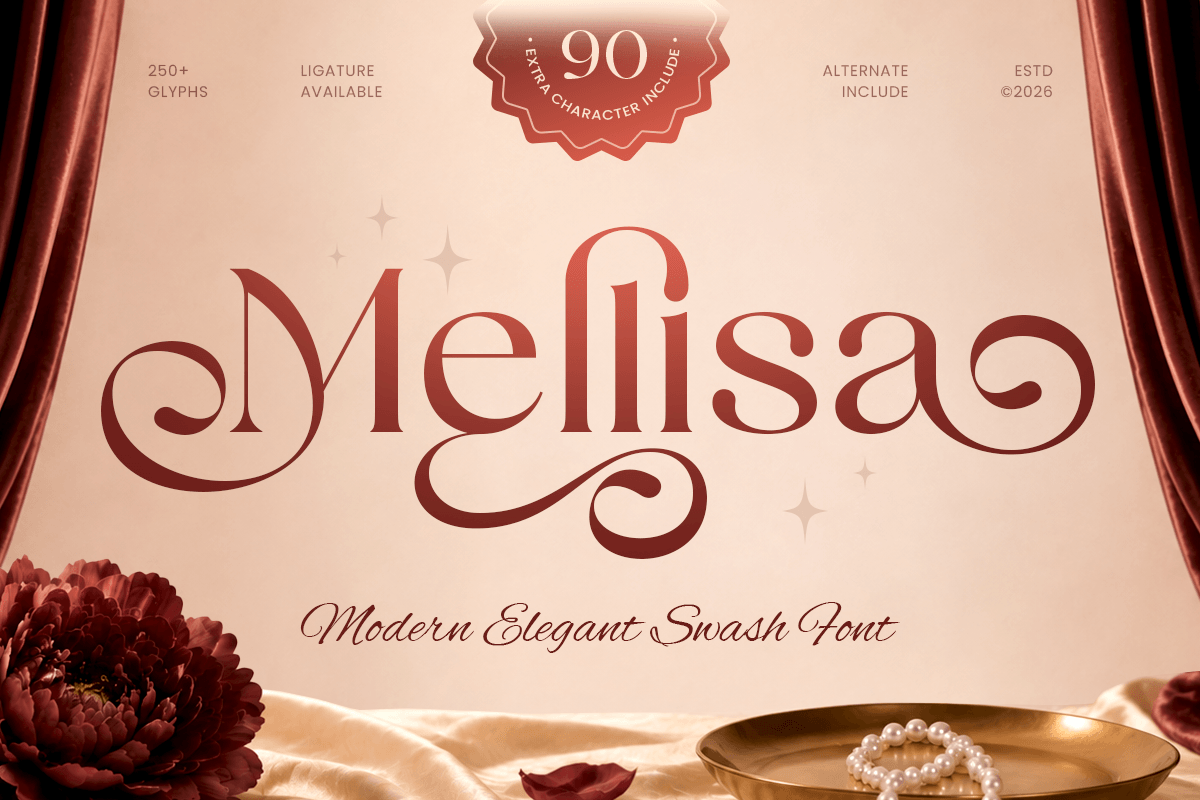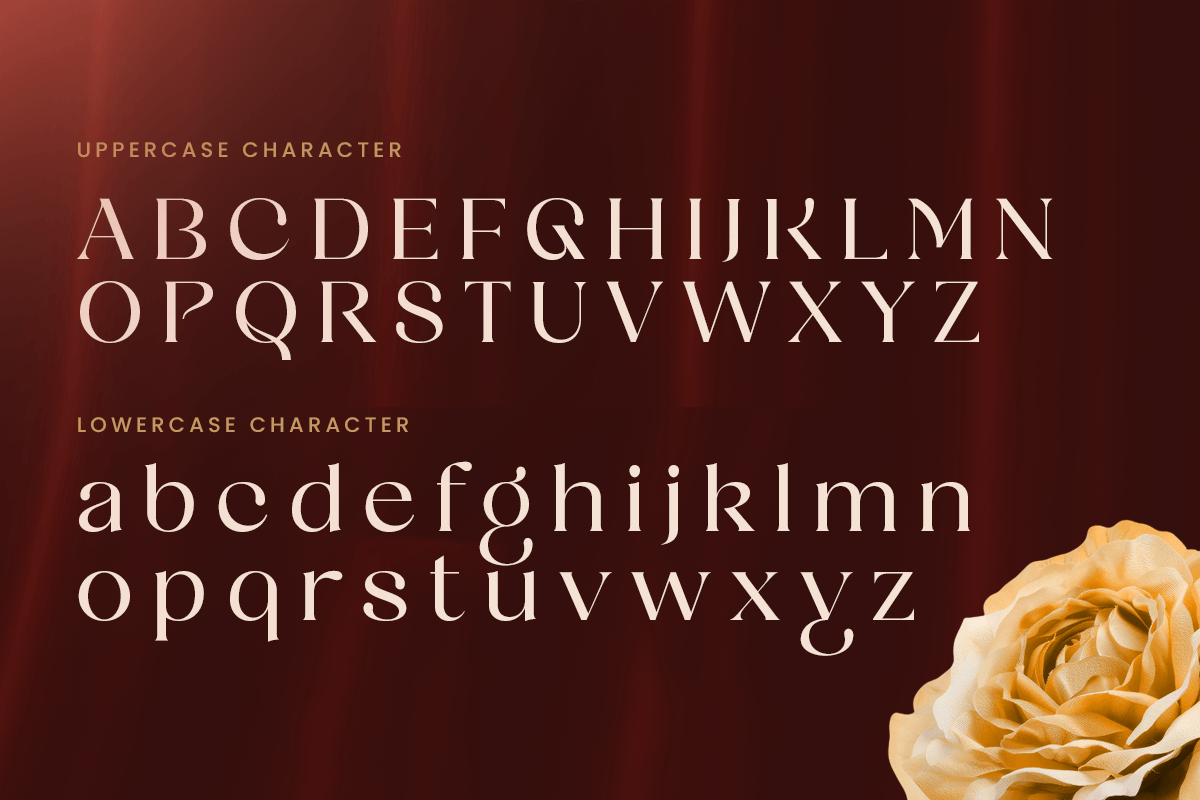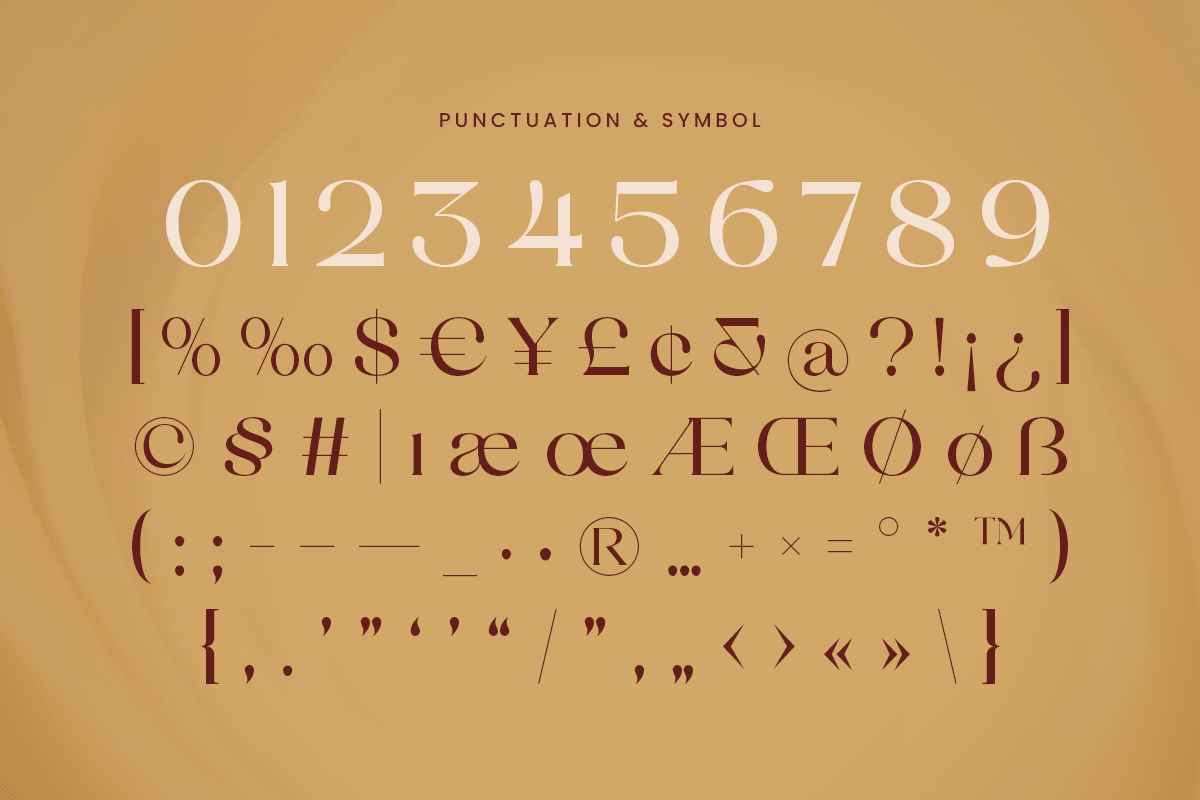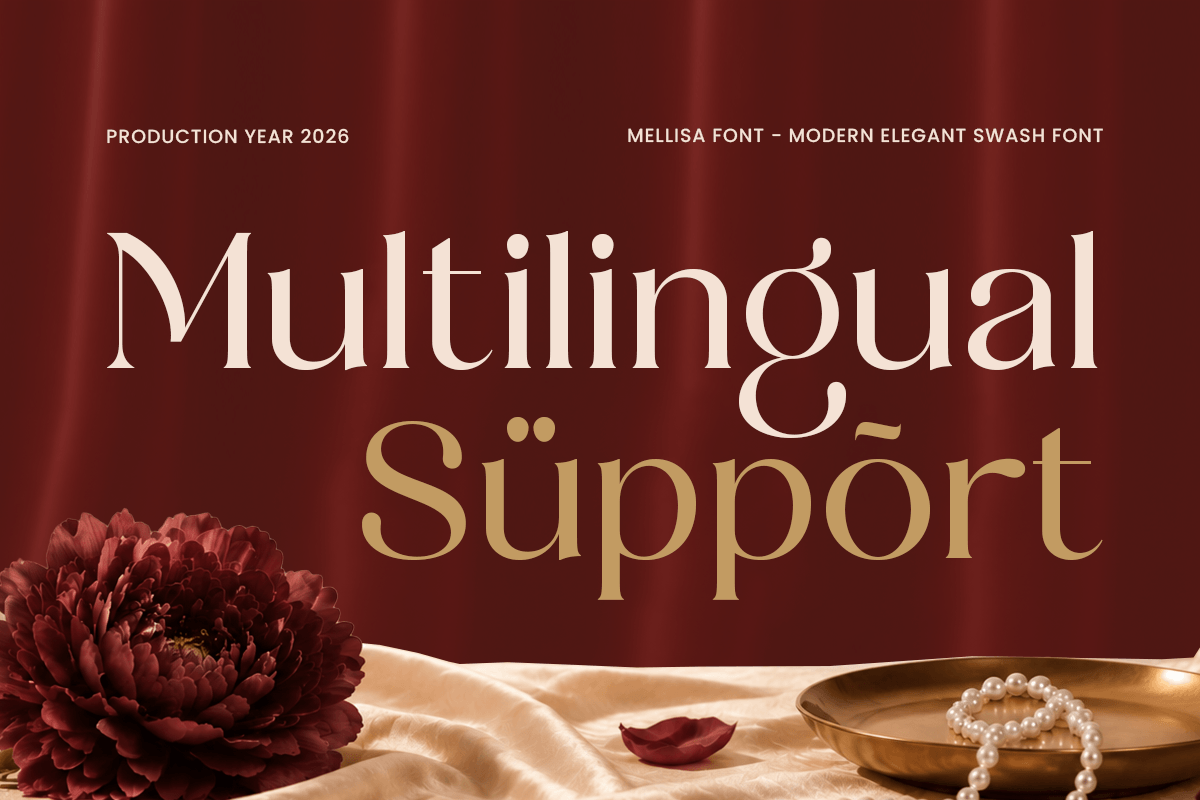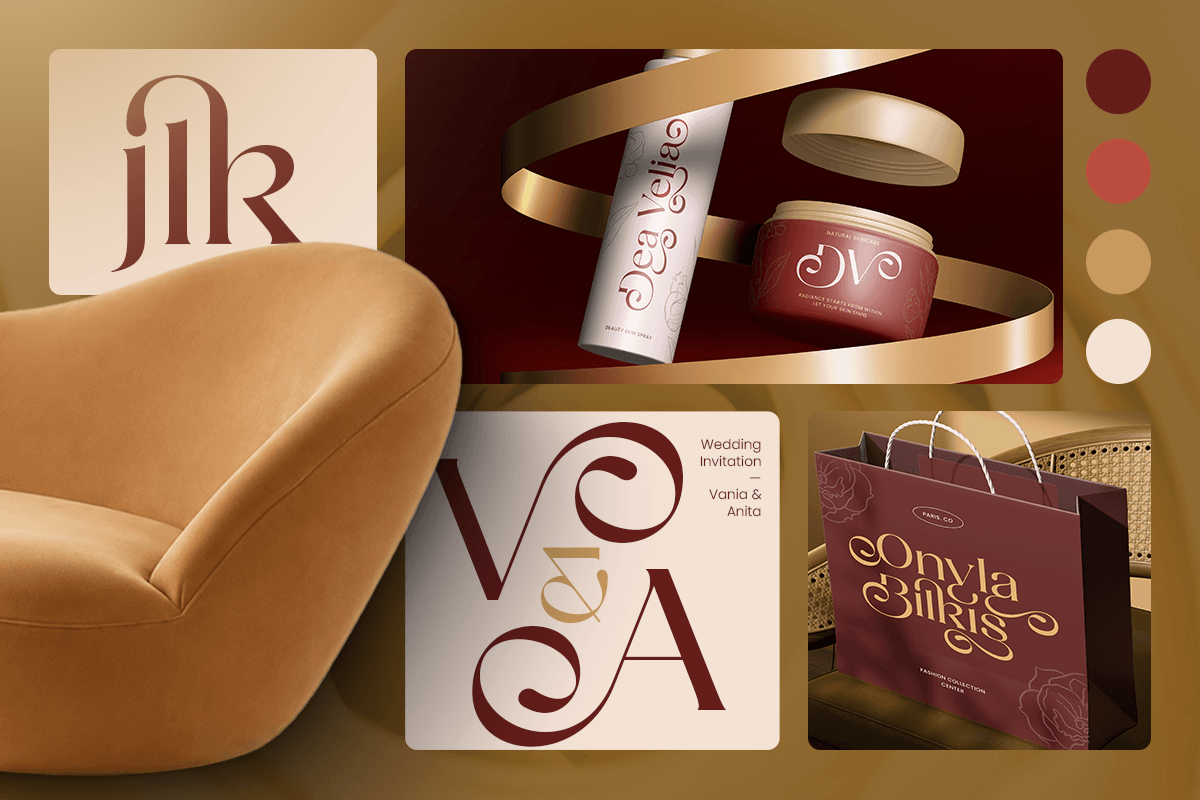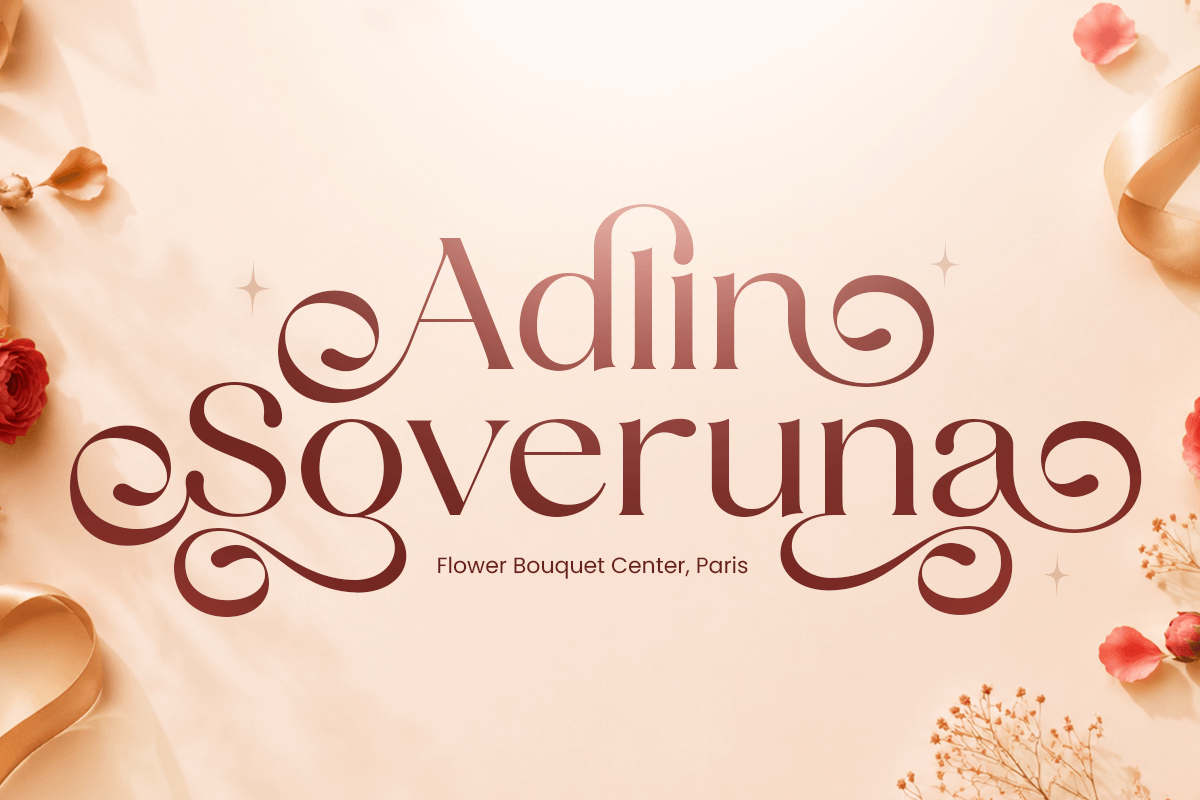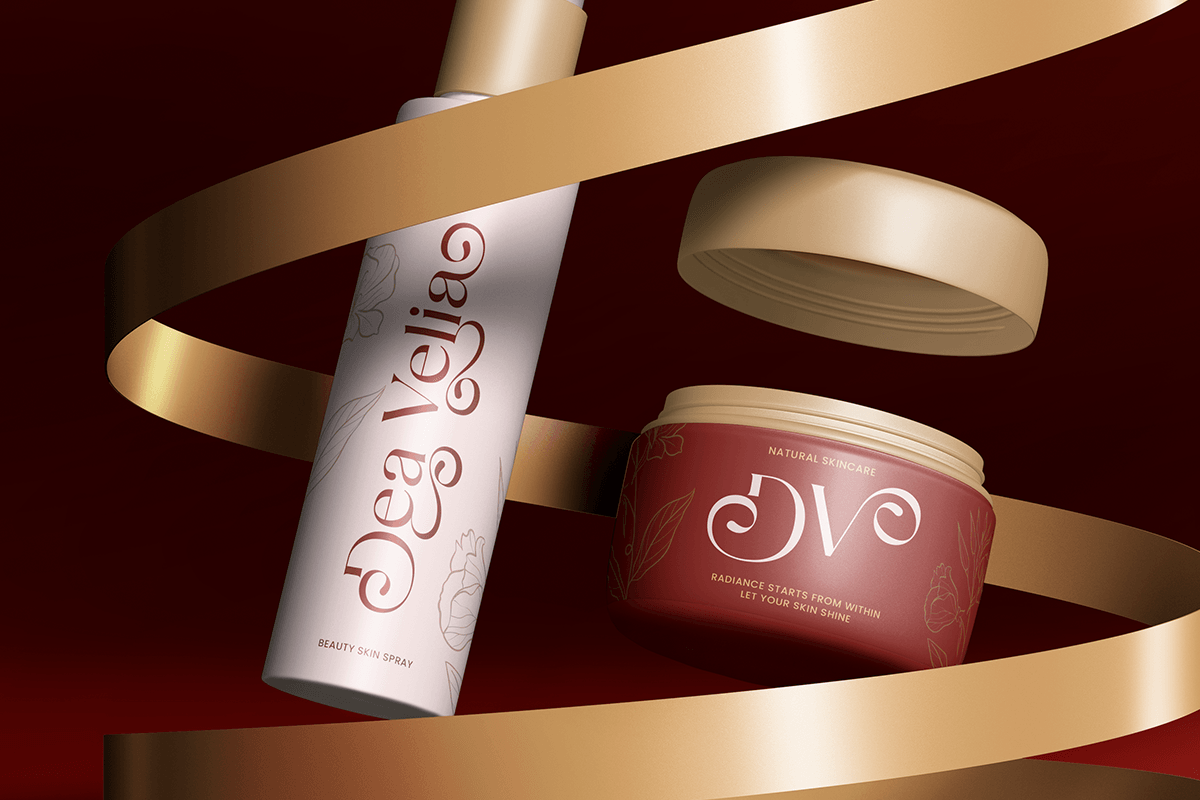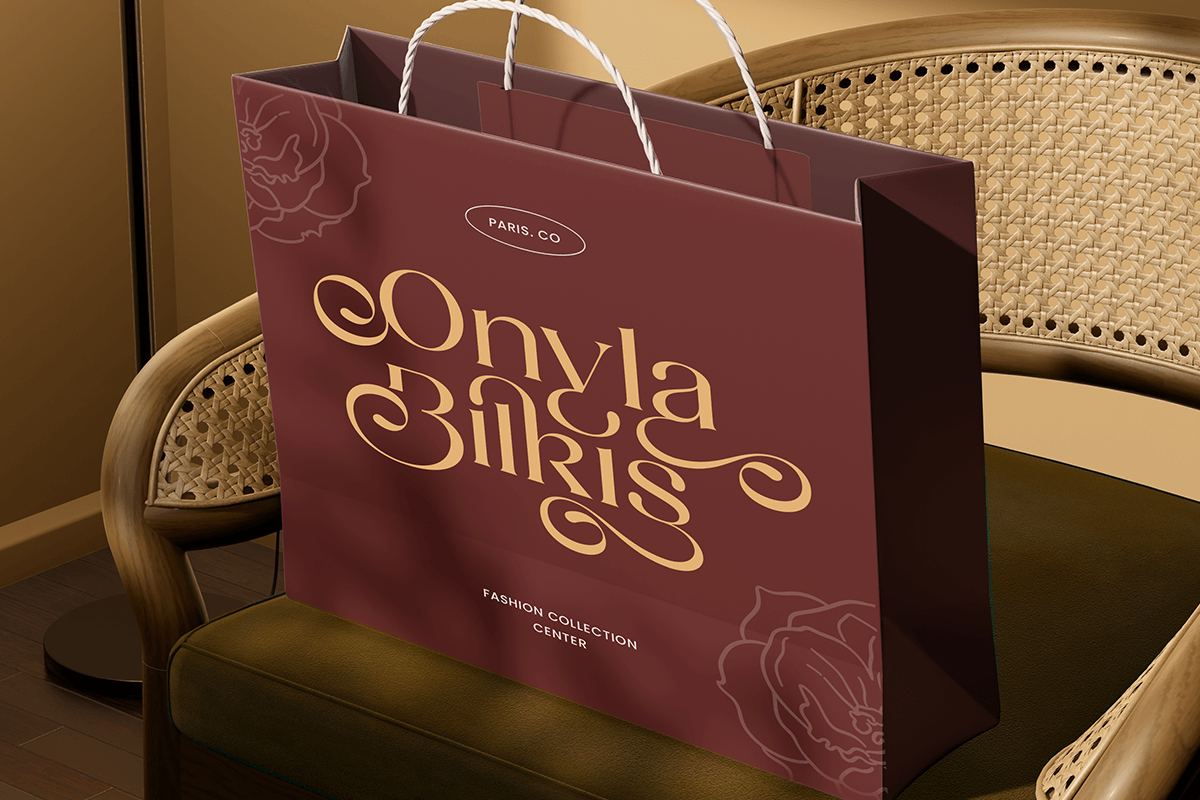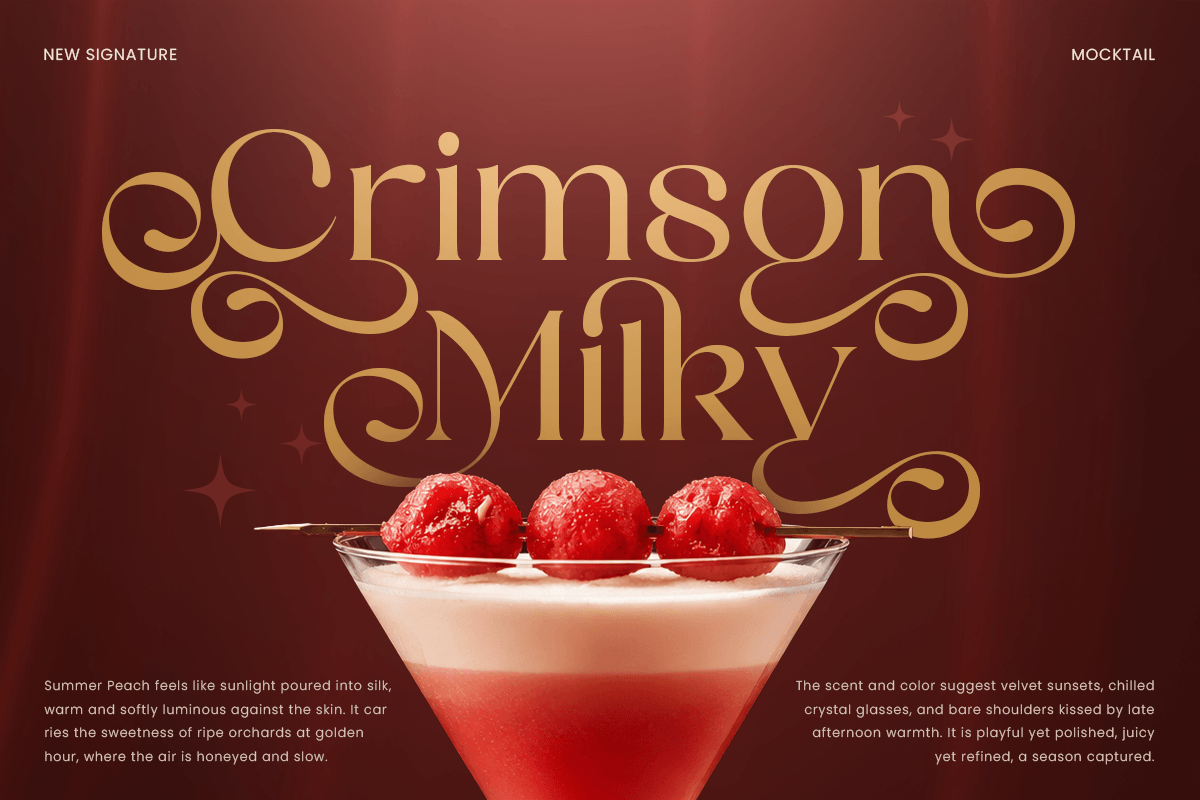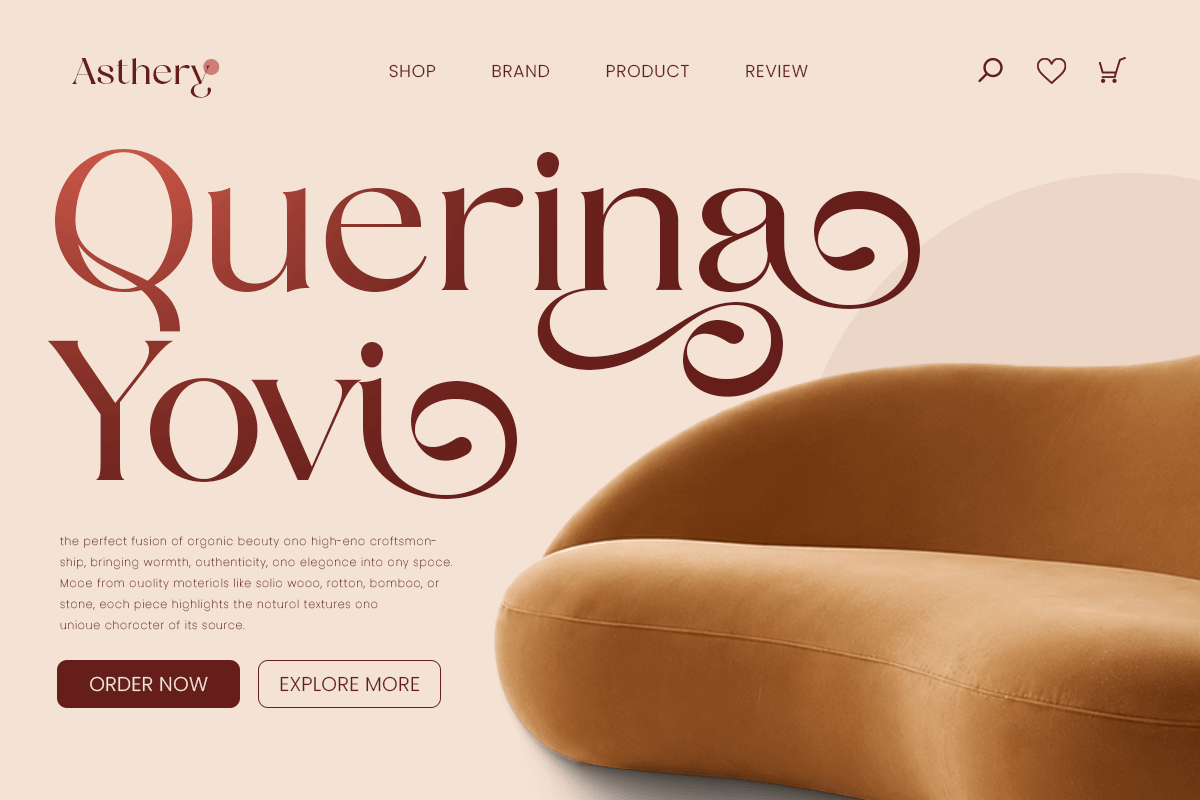
Mellisa - Modern Elegant Font
Mellisa is a modern elegant font crafted with refined letterforms, graceful details, and a sophisticated personality. Combining contemporary aesthetics with timeless elegance, this typeface delivers a polished and luxurious presence for creative projects that require style and distinction.
Perfect for luxury branding, elegant logos, fashion identities, beauty packaging, wedding stationery, editorial layouts, and premium product designs, Mellisa brings a classy visual character to every composition. Its modern elegant style also works beautifully for posters, headlines, signage, social media graphics, and sophisticated print materials.
Whether used for a boutique brand, cosmetics label, magazine cover, invitation, or high-end visual identity, Mellisa provides designers with a versatile modern elegant font that feels refined, fashionable, and memorable across both digital and print applications.
Mellisa – Modern Elegant Features
- Refined modern letterforms with an elegant personality
- Perfect for luxury branding, logos, fashion, and beauty
- Ideal for wedding stationery and sophisticated editorial layouts
- Includes uppercase, lowercase, numerals, and punctuation
- Stylish for packaging, posters, headlines, and social media
- OpenType features for creative typographic flexibility
- Works beautifully across digital and print projects
Multilingual Support
Afrikaans, Albanian, Asu, Basque, Bemba, Bena, Breton, Chiga, Cornish, Dutch, English, Estonian, Filipino, Finnish, Friulian, Galician, German, Gusii, Indonesian, Irish, Italian, Kabuverdianu, Kalenjin, Kinyarwanda, Luo, Luxembourgish, Luyia, Machame, Makhuwa-Meetto, Makonde, Malagasy, Manx, Morisyen, North Ndebele, Nyankole, Oromo, Portuguese, Quechua, Romansh, Rombo, Rundi, Rwa, Samburu, Sango, Sangu, Scottish Gaelic, Sena, Shambala, Shona, Soga, Somali, Spanish, Swahili, Swedish, Swiss, and more.